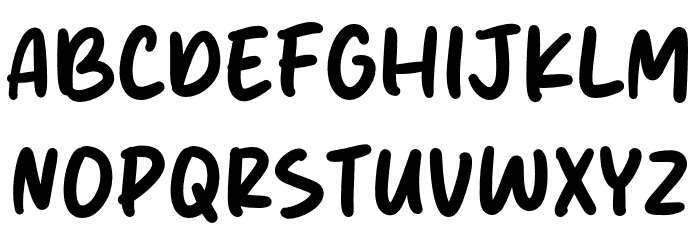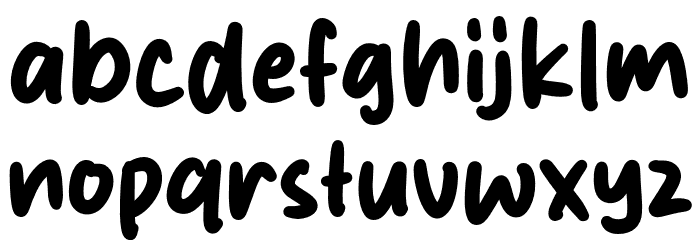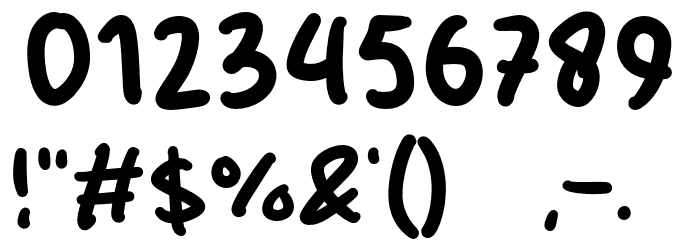
Pancakes Cream Font
This playful and energetic font features a handwritten style with bold, rounded characters that convey a sense of warmth and friendliness. The letters are slightly irregular, adding a touch of whimsy and charm. Each character is well-defined, with consistent stroke thickness that maintains readability while offering a casual, informal appearance. The font includes a full set of uppercase and lowercase letters, numerals, and a variety of punctuation marks, making it versatile for various design needs. Its approachable style is perfect for projects that aim to evoke a sense of fun and creativity.
A bold, handwritten font with a playful and friendly style.
- Font: Pancakes Cream
- Proposed Projects: Ideal for children's books, playful branding, casual invitations, and creative social media graphics.
- Category: Handwritten
- Overall Style: Playful
- Use Case: Headlines, Logos, Informal Text